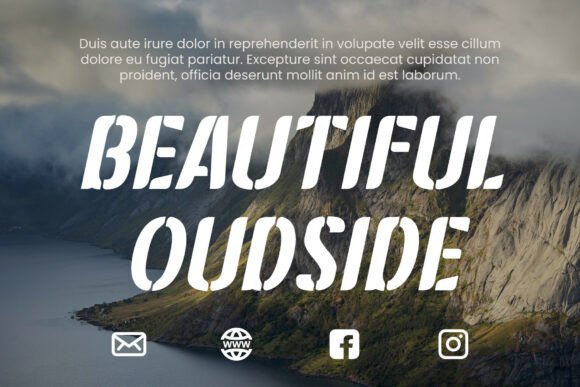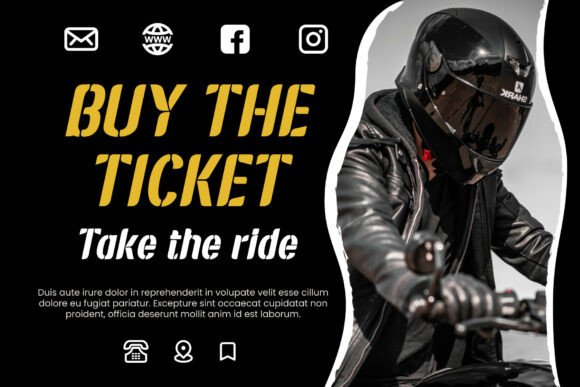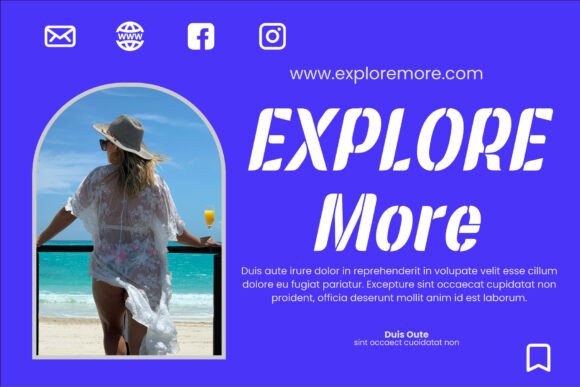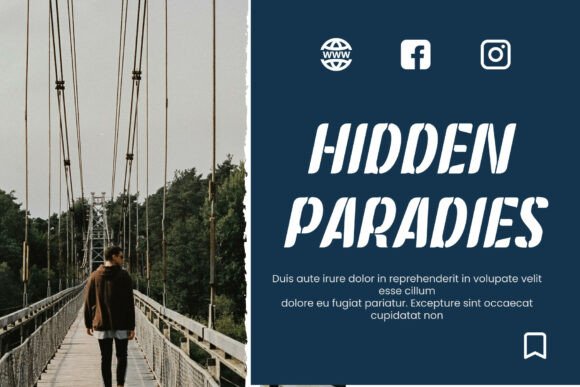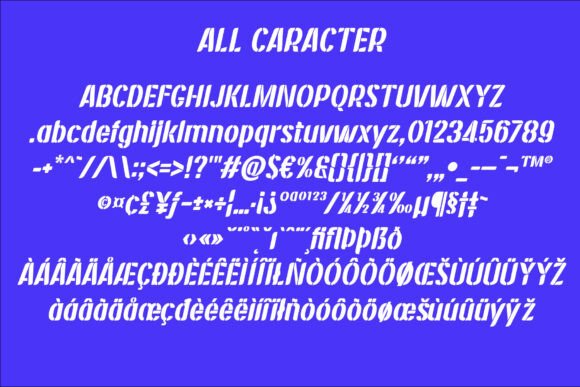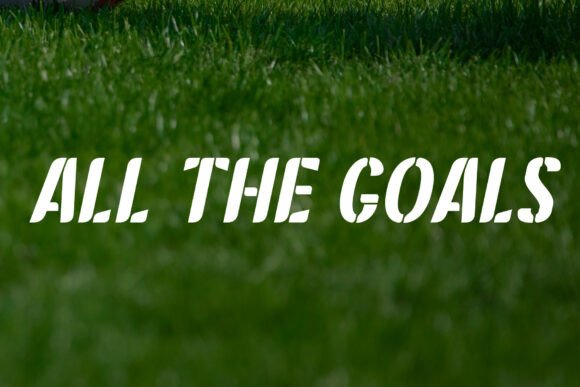
The Power of Exton Italic: Elevate Your Designs with a Striking Display Font
I’ll never forget the design project that made me fall in love with the Exton Italic font. I was working on a branding campaign for a trendy new coffee shop, and I needed a font that would make their logo stand out. After hours of scrolling through font libraries, I stumbled upon Exton Italic, and it was love at first sight. The bold letterforms, unique sliced details, and modern geometric vibe instantly captured the essence of the brand. In this article, I’ll share my experience with Exton Italic, its features, and how to make the most of this stunning display font.
An Honest Review of Exton Italic
- ✨ Unique and eye-catching design: Exton Italic’s bold letterforms and sliced details make it perfect for projects that demand attention.
- ✅ Versatility: This font works well for both digital and print projects, from logos and headlines to posters and social media graphics.
- 💡 Instant modern edge: Exton Italic adds a touch of sophistication and contemporary style to any design.
While Exton Italic is an amazing font, there are a few things to keep in mind:
- ⚠️ Legibility at small sizes: Due to its bold and sliced design, Exton Italic can become difficult to read at very small font sizes.
- 🤔 Overuse: As with any bold font, it’s easy to overuse Exton Italic. Balance it with simpler fonts to create visual harmony.
Exton Italic supports OpenType features, glyphs, and stylistic alternates, allowing you to customize your text and create unique effects. Here are a few tips:
- Stylistic alternates: Swap out default characters with alternate glyphs to add visual interest and personality to your text.
- Ligatures: Use ligatures to combine characters and create a more fluid, natural look.
- Glyphs: Access a range of glyphs, including ornaments and swashes, to add decorative elements to your text.
The Backstory of Exton Italic
Exton Italic was designed with modern geometry and clean cuts in mind. The font’s creator aimed to craft a bold and eye-catching display font that would add a touch of sophistication to any design. Inspired by the intersection of art and technology, Exton Italic is the perfect choice for designers who want to create bold statements and modern aesthetics.
| Font Name | Exton Italic Font |
| Author | Rezastudio |
| What is Exton Italic best suited for? | Exton Italic is perfect for projects that demand attention and a contemporary edge, such as logos, headlines, posters, and social media graphics. |
| Is Exton Italic difficult to read? | While Exton Italic is a bold font, it can become difficult to read at very small font sizes. Use it at larger sizes or balance it with simpler fonts for better legibility. |
With its striking design, versatility, and modern edge, Exton Italic is the perfect choice for designers who want to elevate their creative projects and make their typography shine.